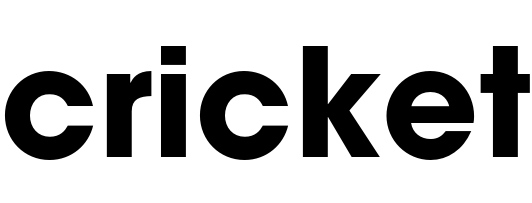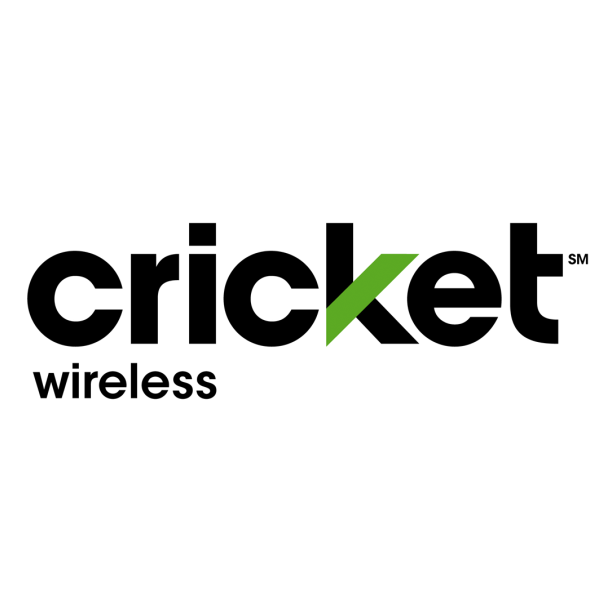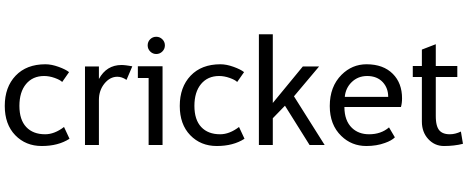
Cricket Wireless Font
Fonts in UseCricket Wireless is a mobile virtual network operator (MVNO) that provides affordable wireless services in the United States. It uses AT&T's network to offer prepaid plans for voice, text, and data services.
The Cricket logo features a font that resembles ITC Avant Garde Gothic Bold, a geometric sans serif typeface created by Herb Lubalin and Tom Carnase in the 1970s. Its previous logo utilized a modified version of Trebuchet, a humanist sans serif typeface designed by Vincent Connare in 1996 for enhanced screen legibility.